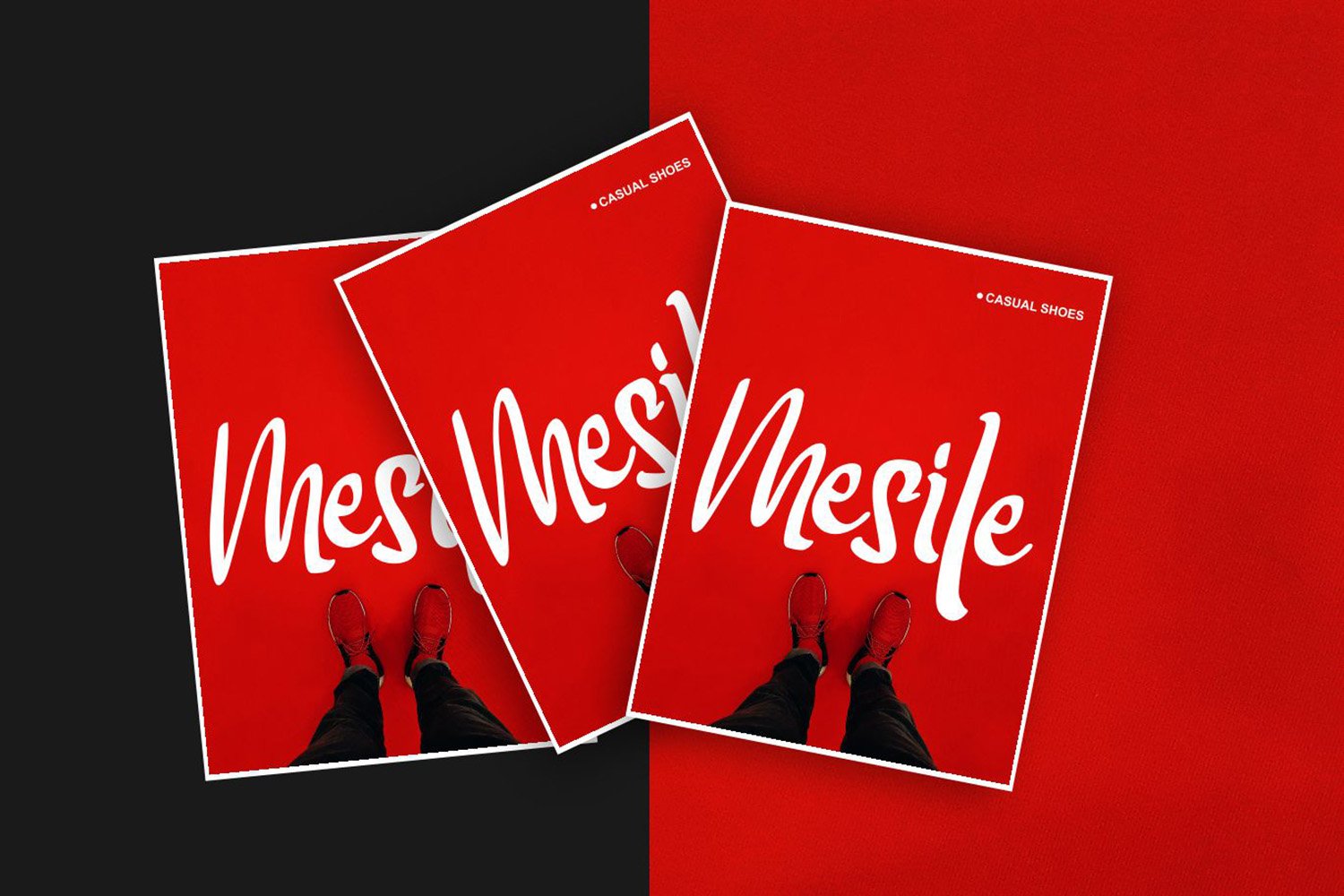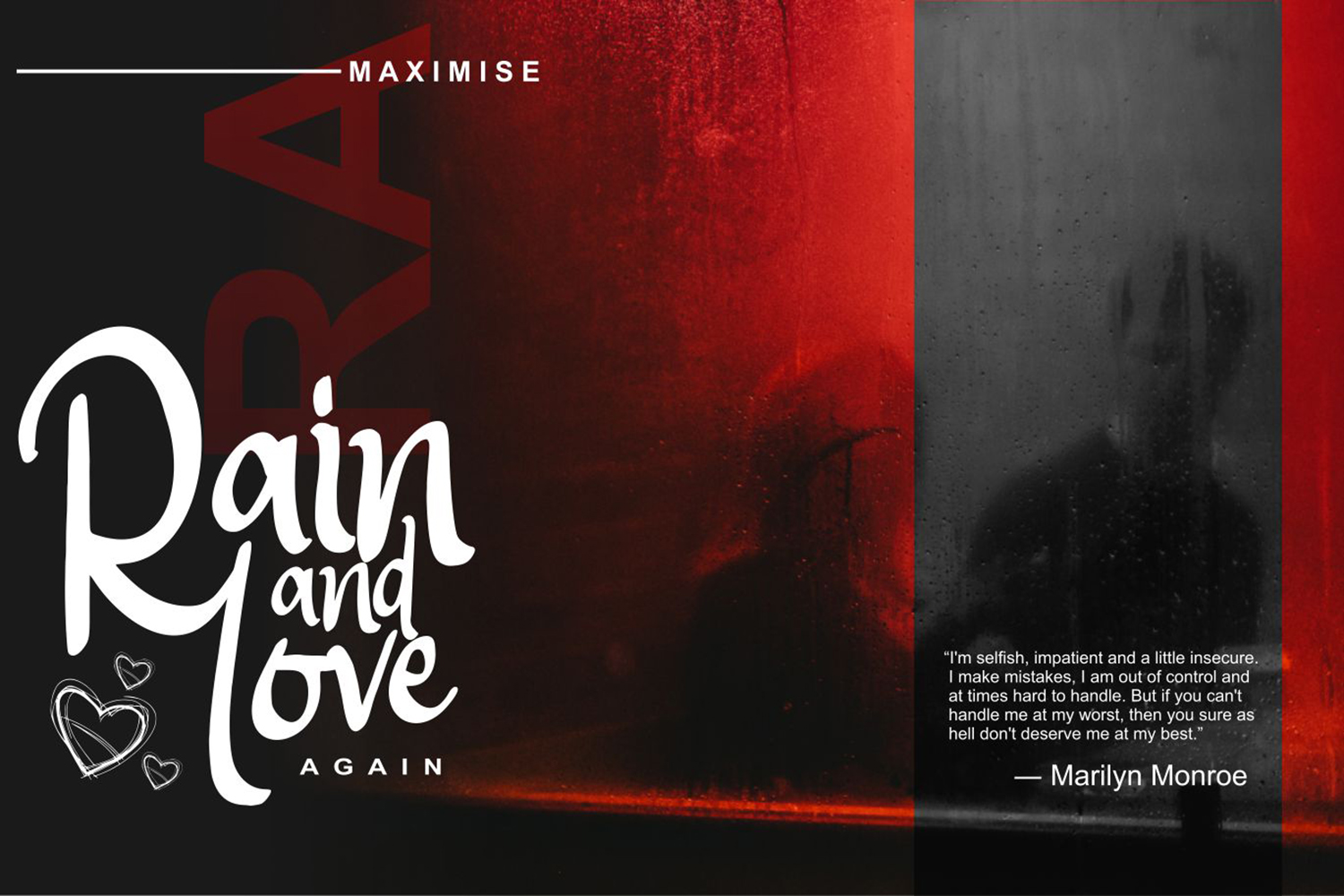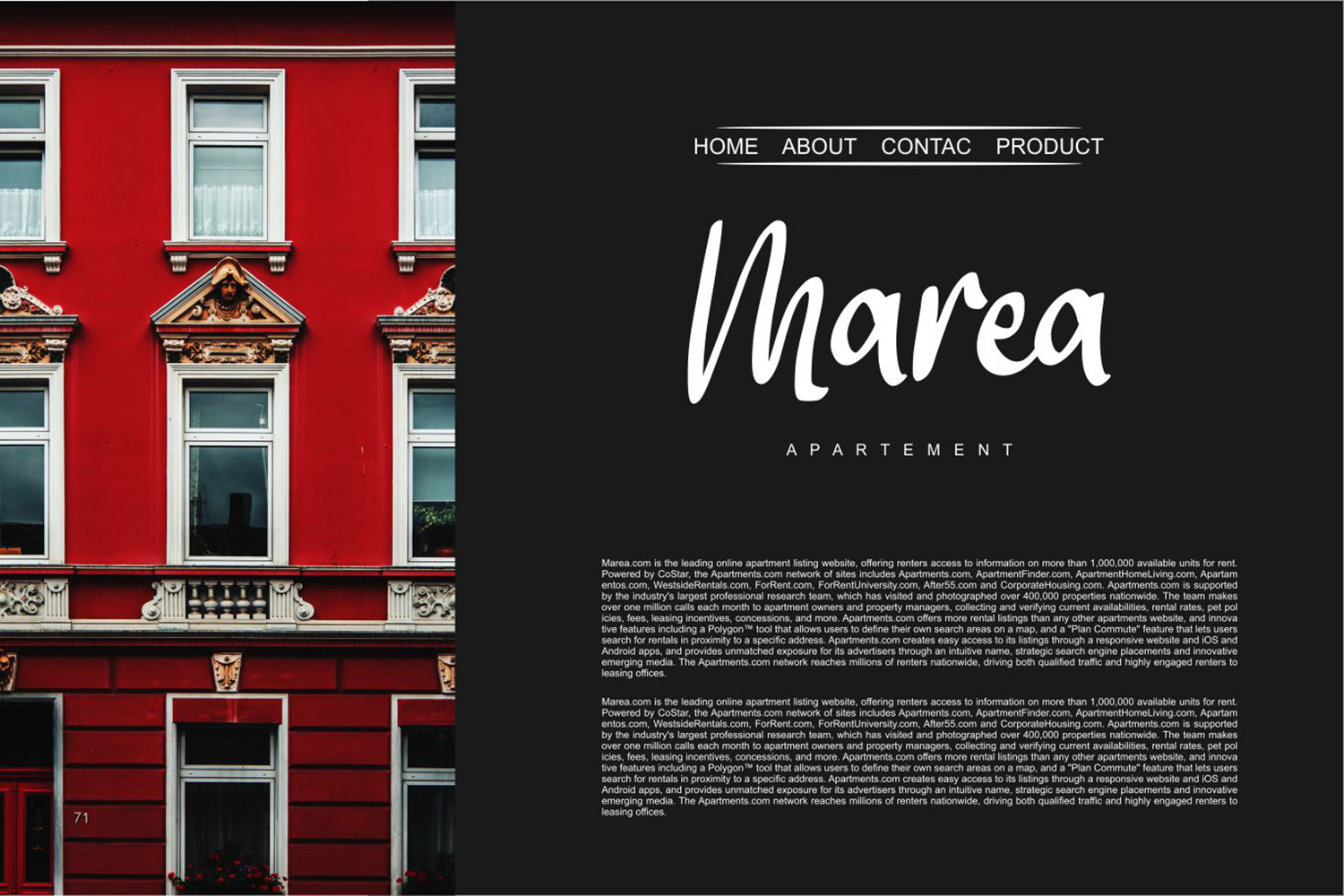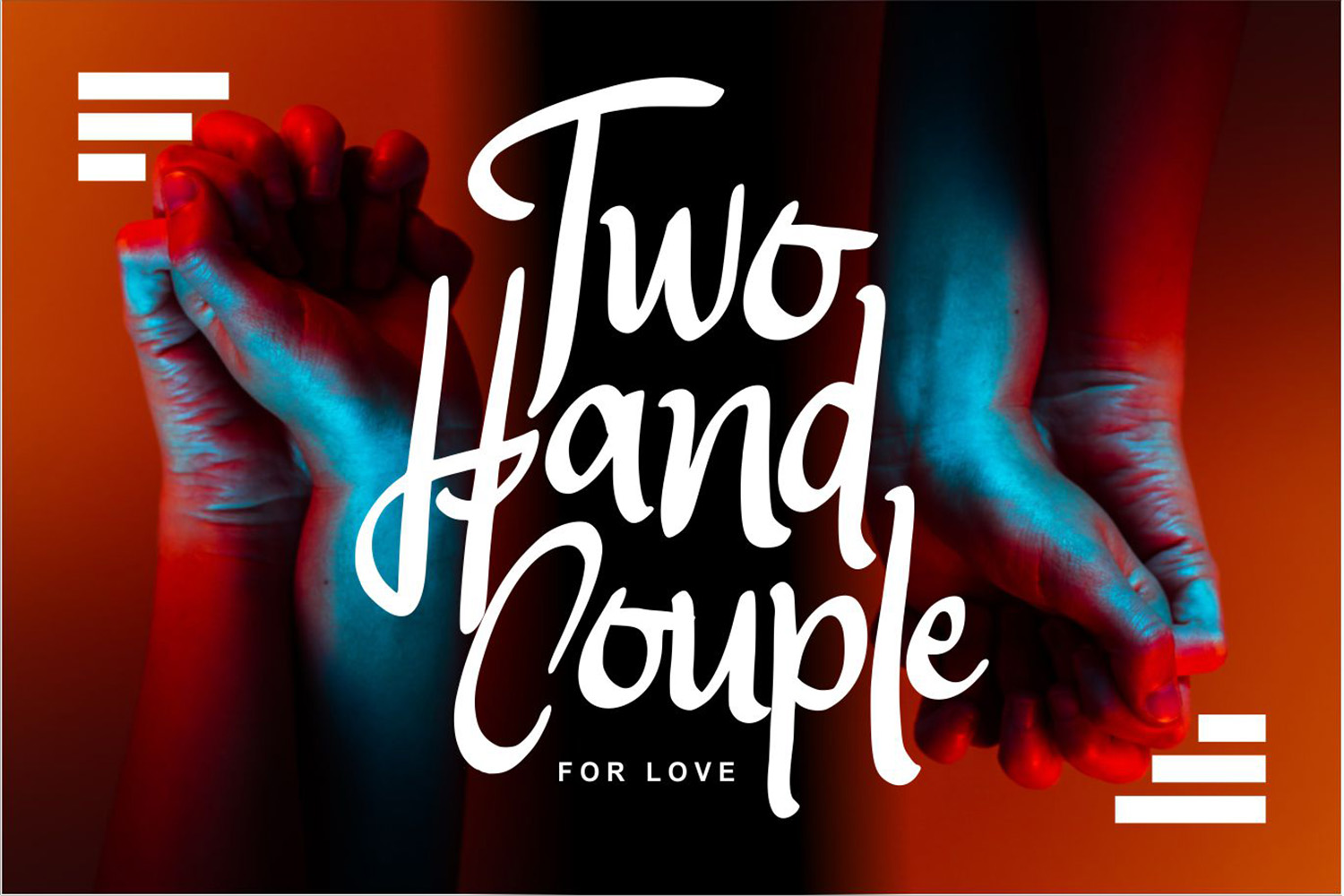
Omesh Free Font
Discover Omesh Free Font, a charming and timeless handwritten font, ideal for crafting eye-catching logos, branding, and quotes. Each letter possesses a unique and beautiful touch that breathes life into your design, making Omesh the perfect choice to enhance your creative projects. This free typeface was designed by a talentedΒ Fannan studio. If you like it don’t forget to check out the full version.